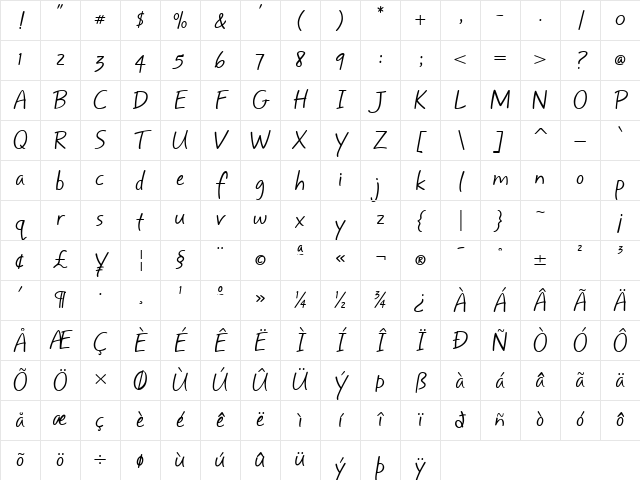
Mayfield Regular
Foundry: TYPADELIC FONTS
Designer: Ronna Penner
Mayfield Family
Design Context for Mayfield
Mayfield is a composed and adaptable typeface that performs quietly and consistently across a wide range of design contexts.